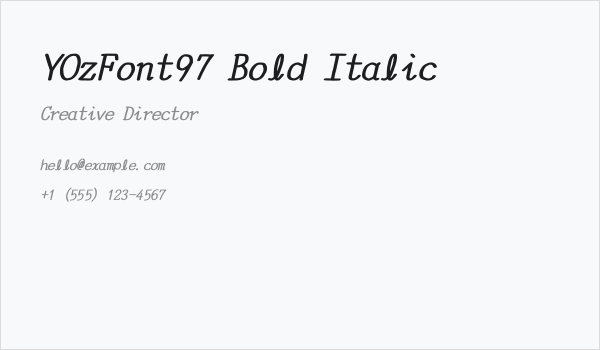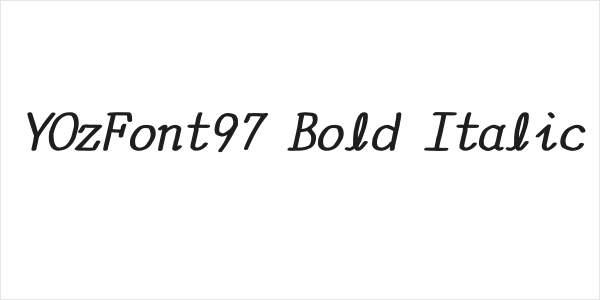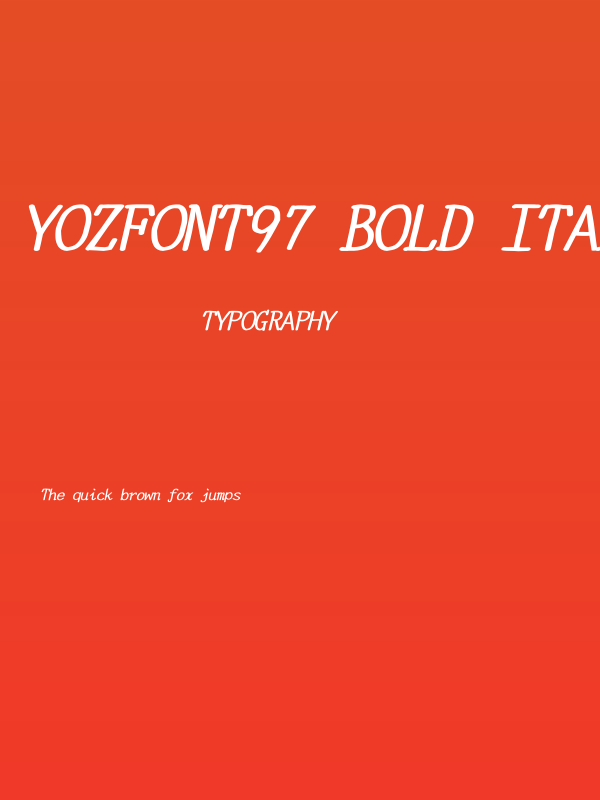
YOzFont97 Bold Italic Font
YOzFont97 Bold Italic Description
This font features a bold and italic style, combining elegance with a touch of flair. The uppercase letters are slightly slanted, giving a dynamic and energetic feel. The lowercase letters maintain a consistent slant, enhancing readability while adding a sophisticated look. Numbers are clear and distinct, with a slight curve that complements the overall style. Special characters are well-defined, ensuring versatility in various design contexts. The font's boldness ensures strong visibility, making it suitable for impactful designs.
Use CaseHeadlines, Logos, Invitations
Proposed ProjectsIdeal for branding, headlines, posters, and invitations where a bold and stylish impact is desired.